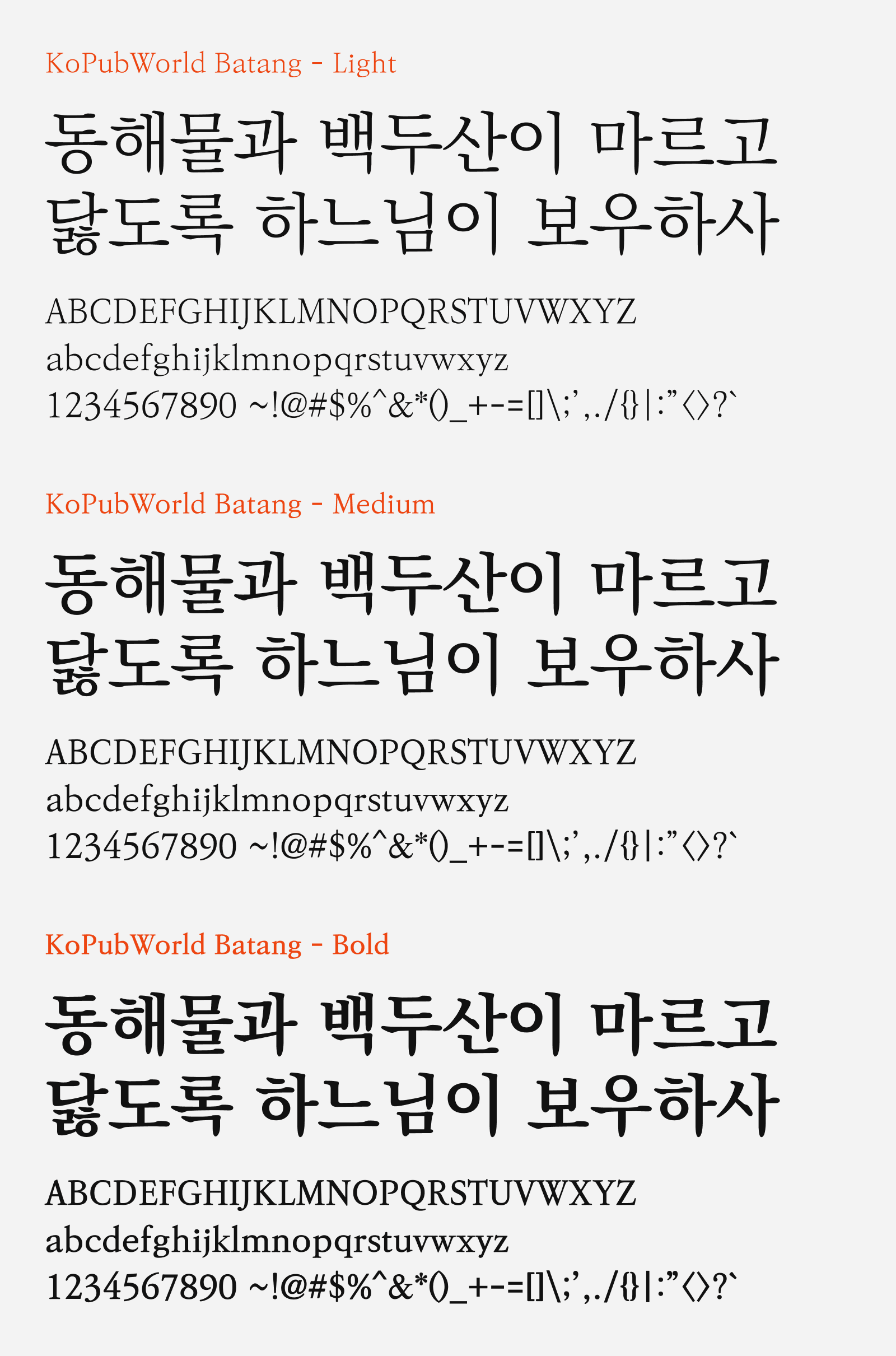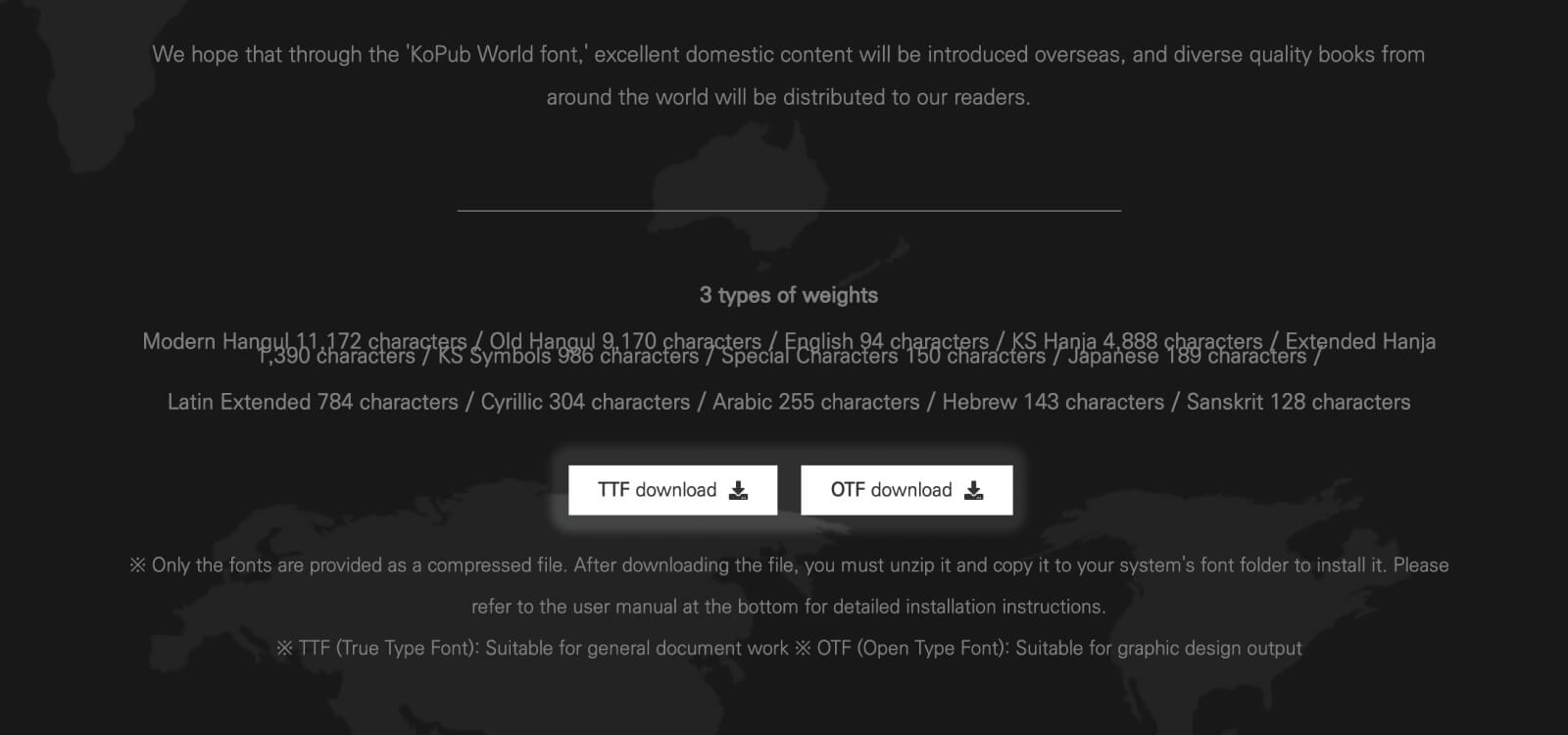
KoPubWorld Batang
KoPubWorld Batang is a serif unicode font designed by Fontrix, with sponsorship from Korea’s government (Ministry of Culture, Sports and Tourism) and published by the Korea Publishers Society. The creation of this font is to be used as digital typeface especially for digital publishing like e-books, and it was made free of charge in 2011, with the goals of strengthening e-book content production by publishers and revitalizing the e-book market. It was then renamed as KoPubWorld Batang from KoPub Batang in 2019, to reflect its richness in multilingual support, where it supports not only Korean, but also Japanese, Greek, Cyrillic, Extended Latin, Hebrew, Arabic and Sanskrit.
KopubWorld Batang comes with three weights: Light, Medium and Bold, to satisfy the need for different weights for screen reading. Despite its designed for digital screens, it works well in printed materials too. You can download this font for free and be used on personal and commercial projects.